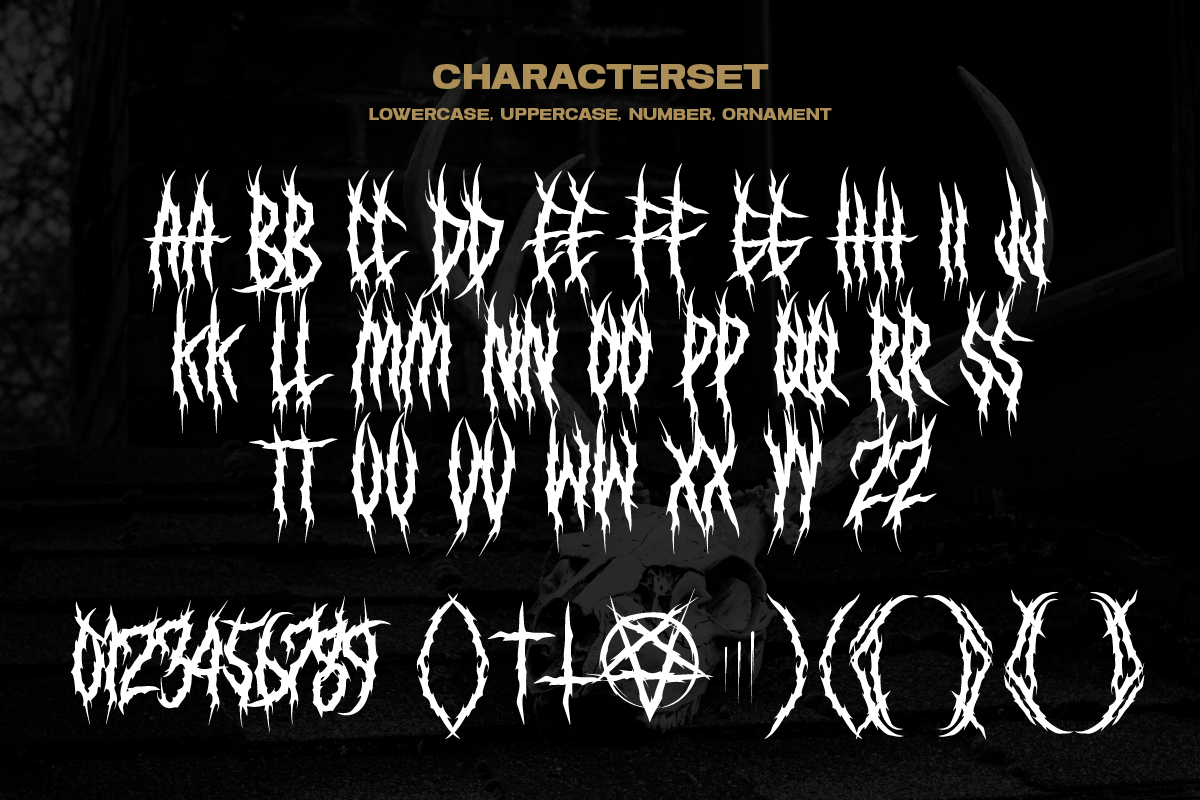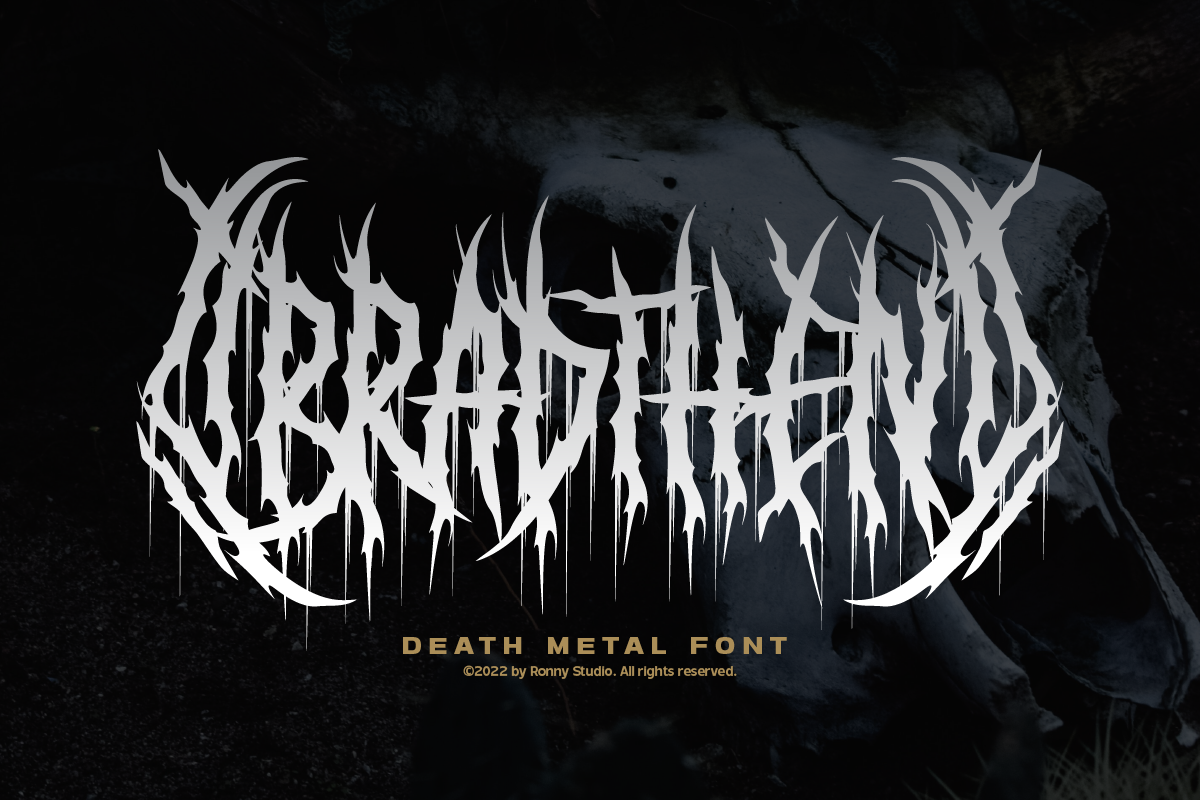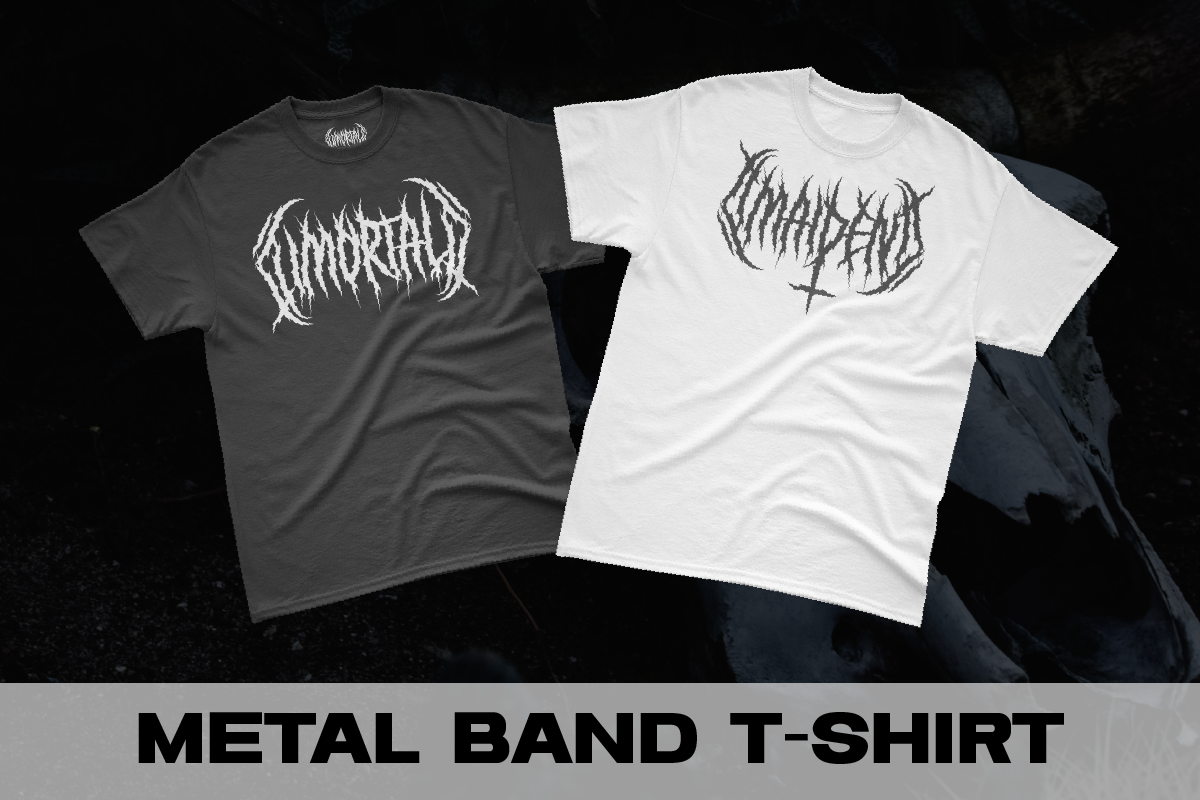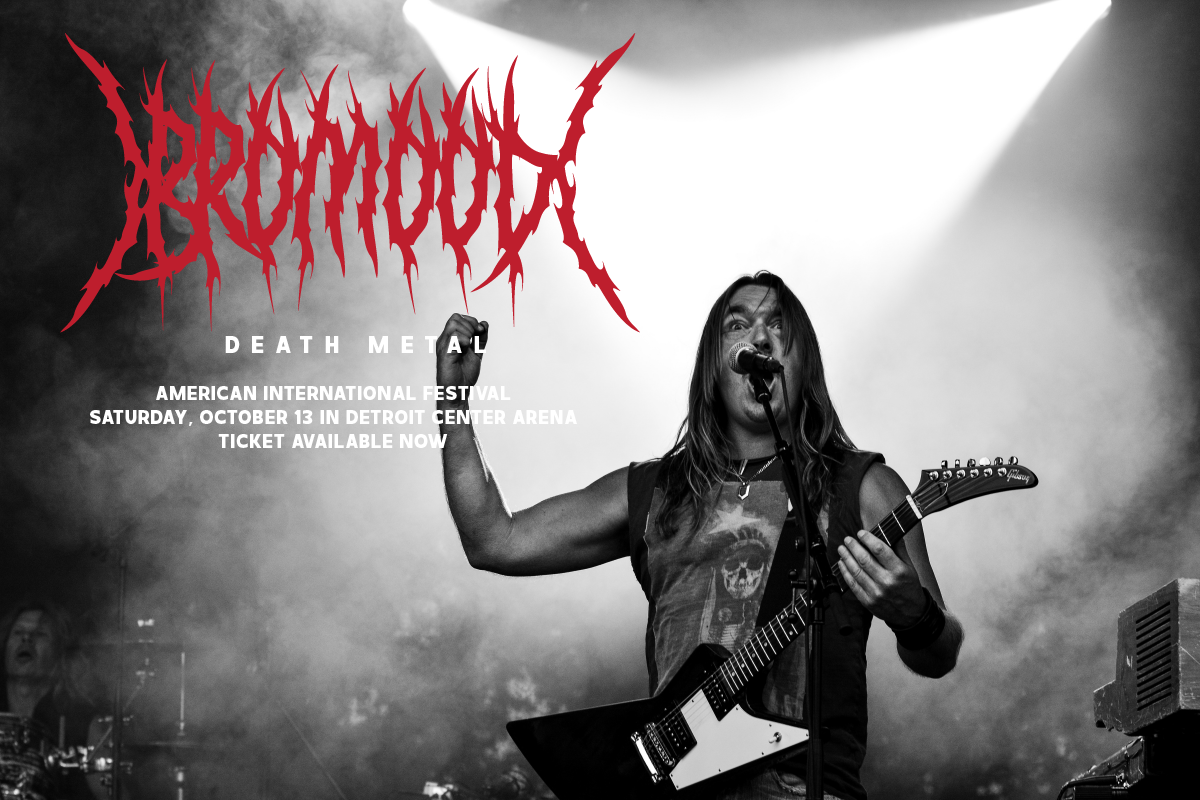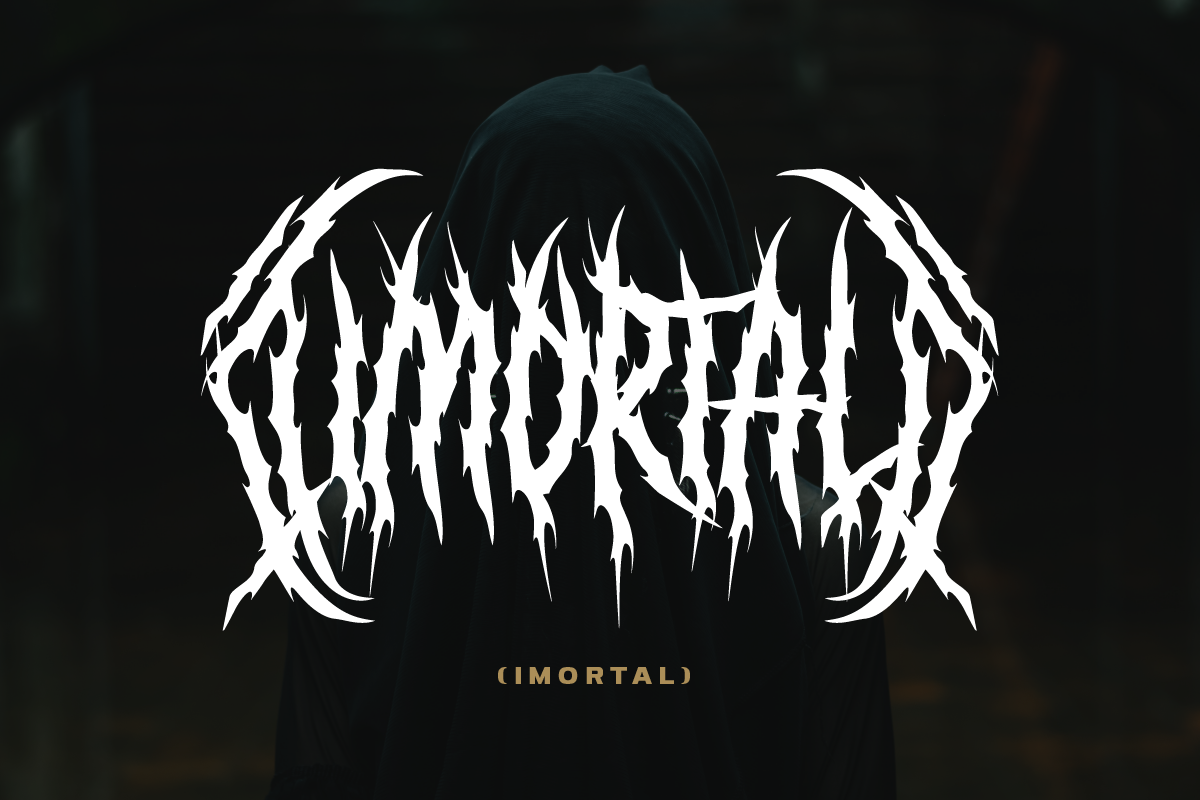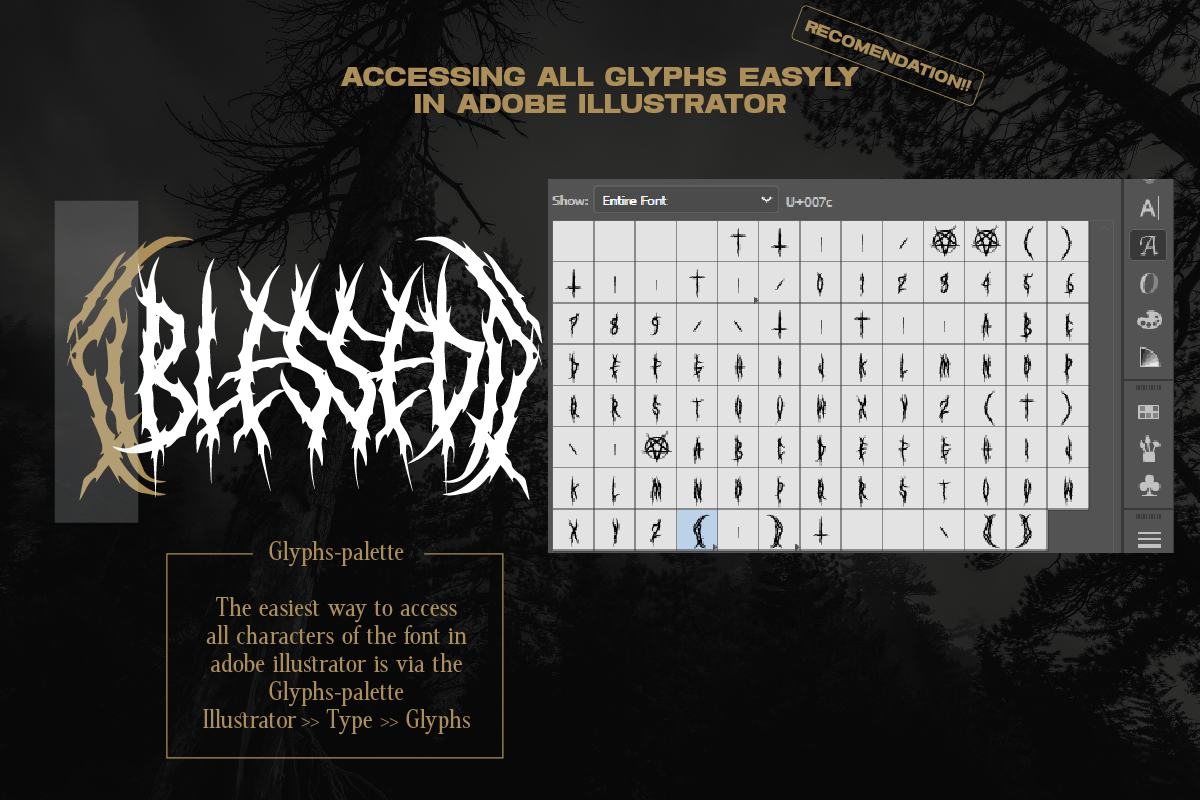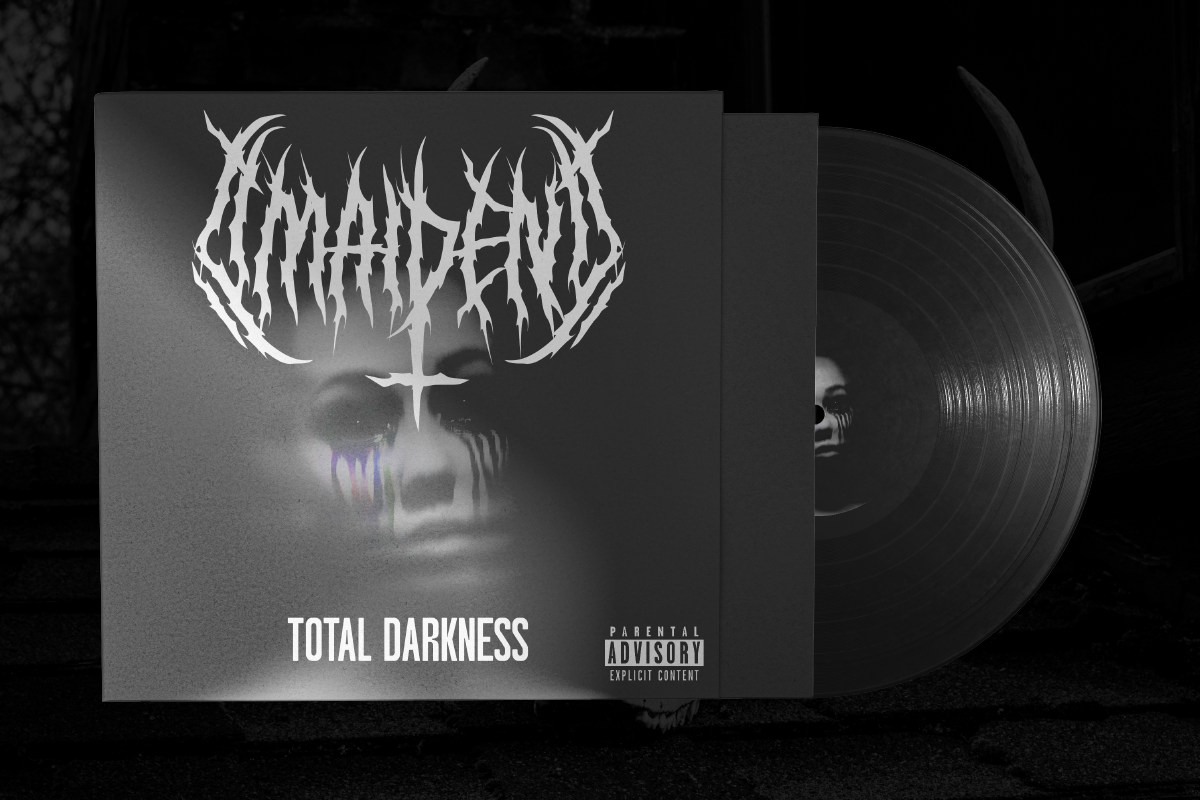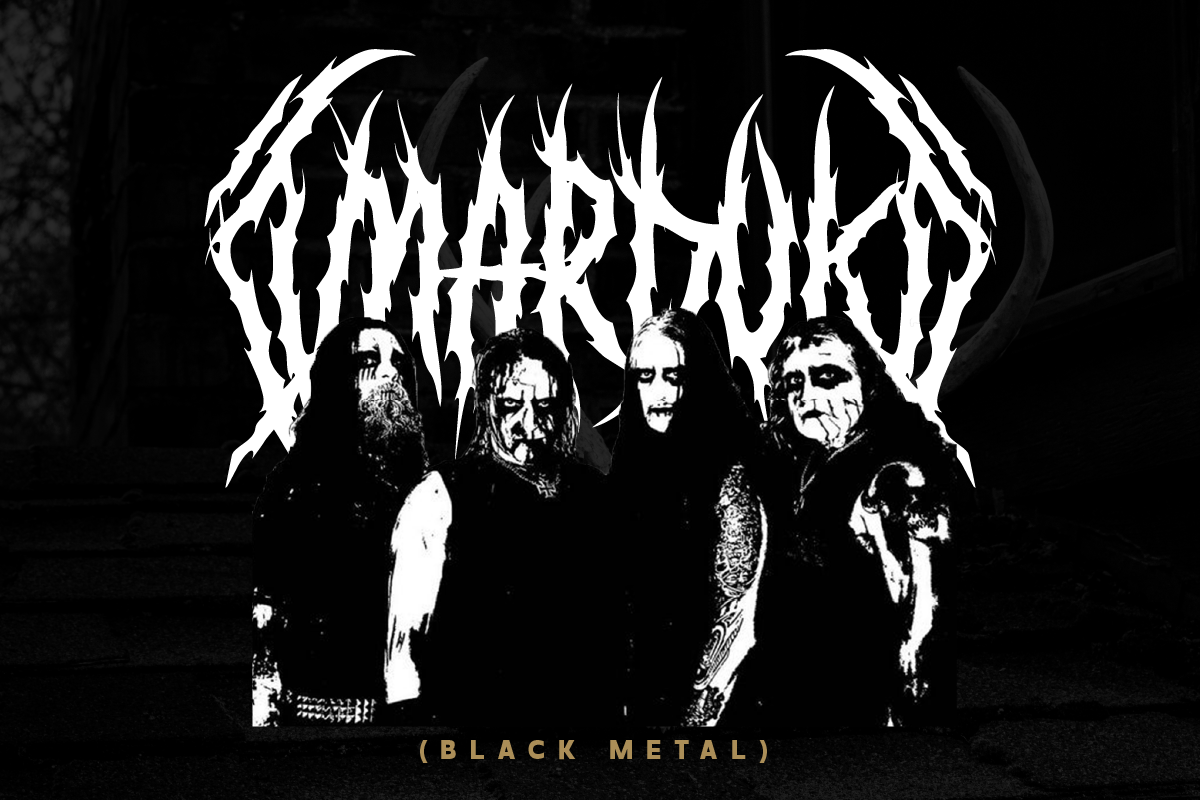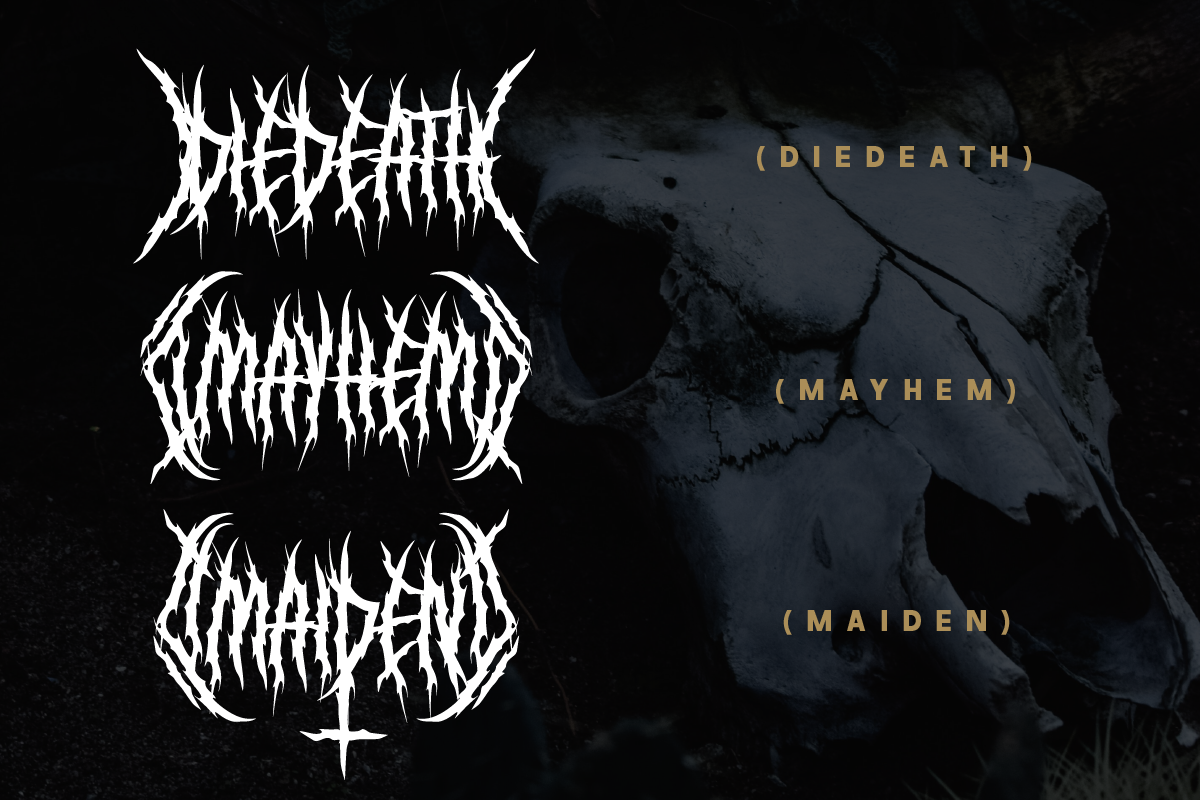
Bradthen Death Metal Font
Bradthen – Death Metal Font for Bold, Dark, and Hardcore Designs
Introducing Bradthen, a bold and aggressive death metal font crafted for designs that demand intensity and rebellion. Inspired by underground metal and gothic culture, Bradthen features sharp, jagged letterforms and high-impact strokes that exude raw power and dark energy. Perfect for band logos, album covers, merchandise, posters, and extreme sports branding, this font is your go-to for creating bold statements.
- Death Metal Style – Bold, distorted characters with sharp edges and a rebellious vibe.
- Complete Character Set – Includes uppercase, lowercase, numerals, punctuation, and multilingual support.
- Versatile Applications – Perfect for music branding, merchandise, posters, social media, and edgy creative projects.
- Death metal and underground band logos
- Album covers, merchandise, and promotional posters
- Extreme sports branding and apparel
- Gothic and dark-themed design projects
- Social media graphics and metal scene marketing
- Projects that need bold, intense, and aggressive typography
Bring the hardcore attitude to your design projects with Bradthen and make your visuals truly unforgettable.